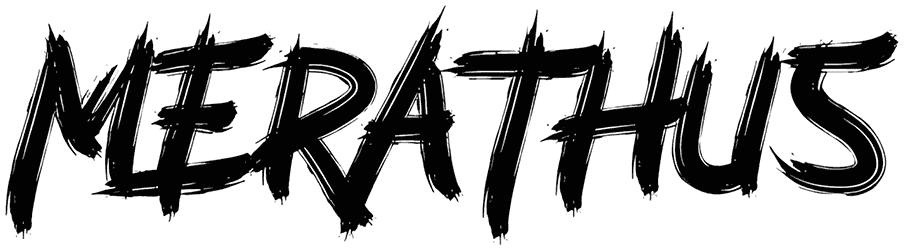
Merathus Font
Do you ever feel there’s not enough energy in your lettering, like when your words just don’t strike you as lively as you had in mind? We’re glad to let you know that an urban font like Merathus can fix it every time you have similar problems.
You can always find traces of life itself in designs made with brush fonts. So, now that you have Merathus at your fingertips, let’s see how it works as karate posters, summer designs, etc.